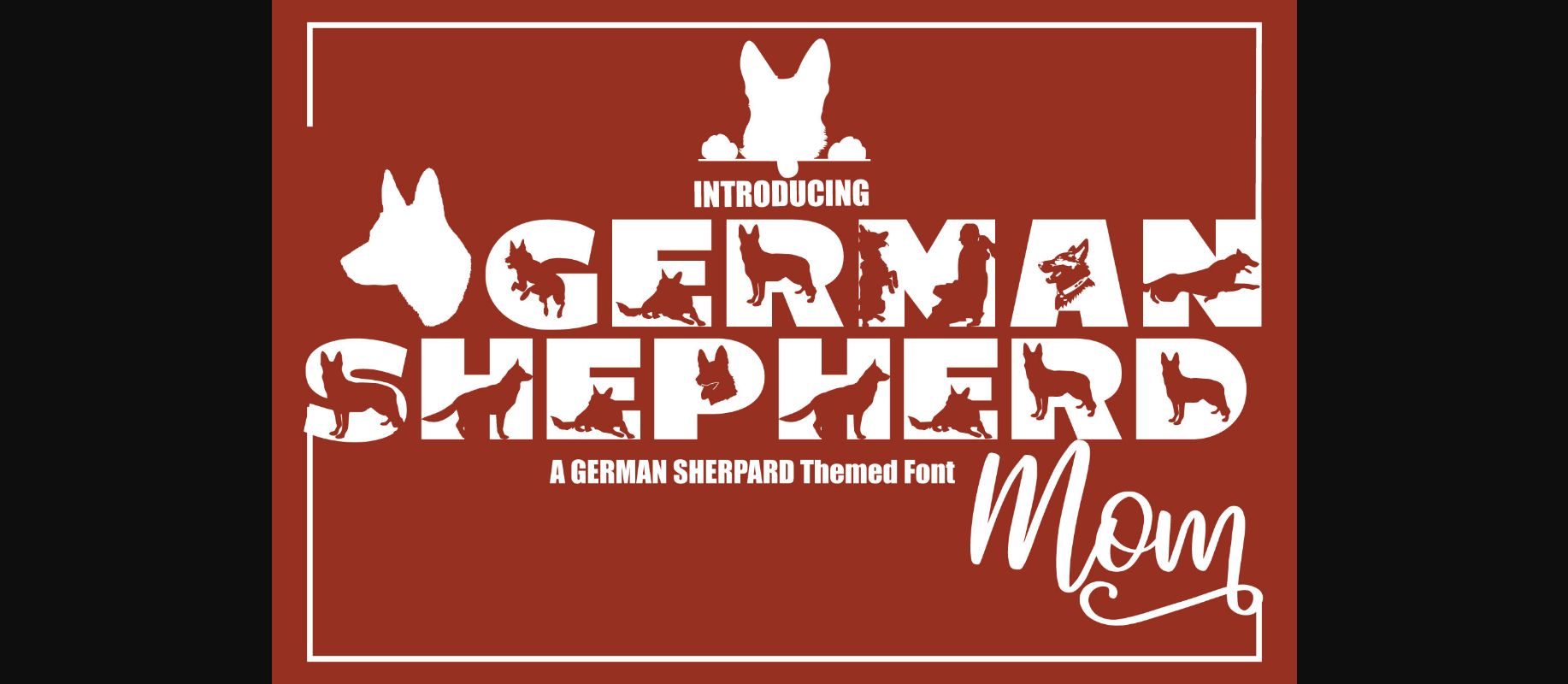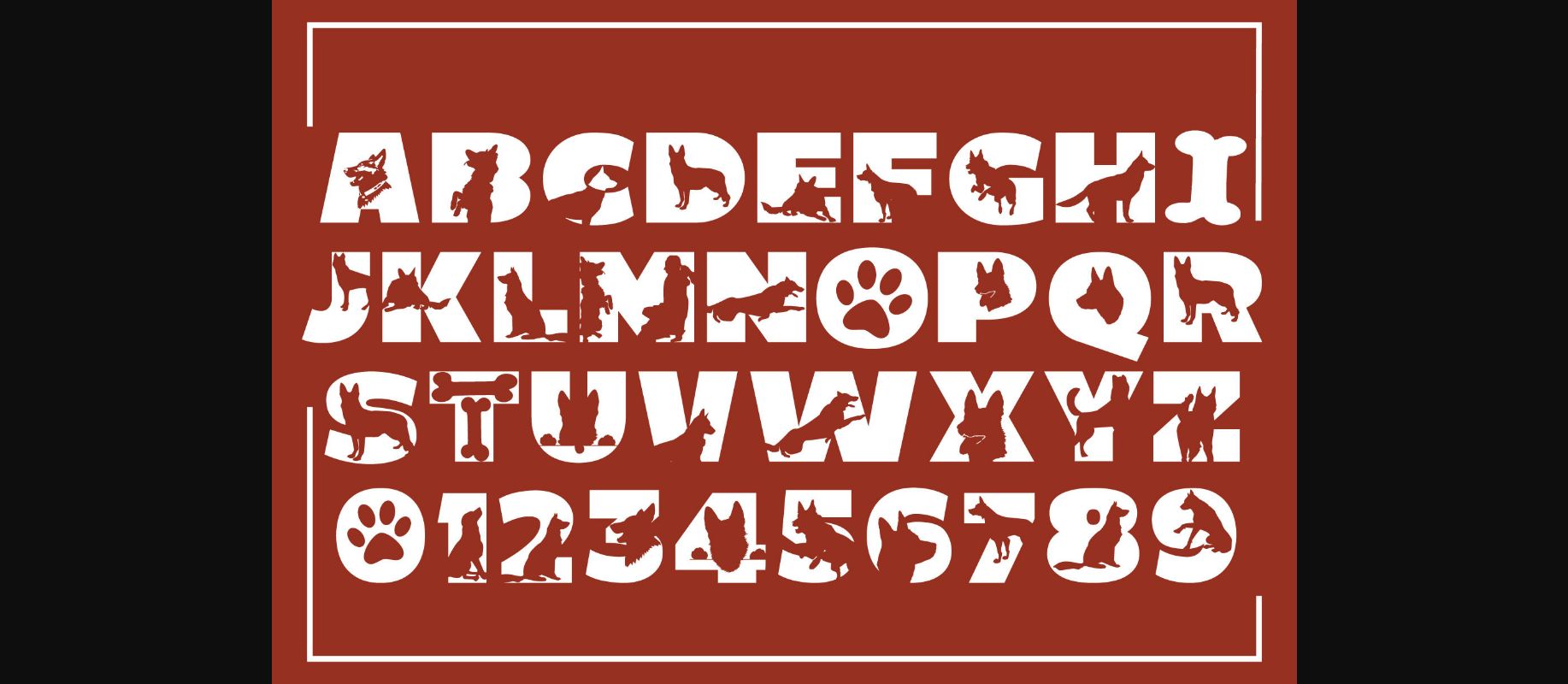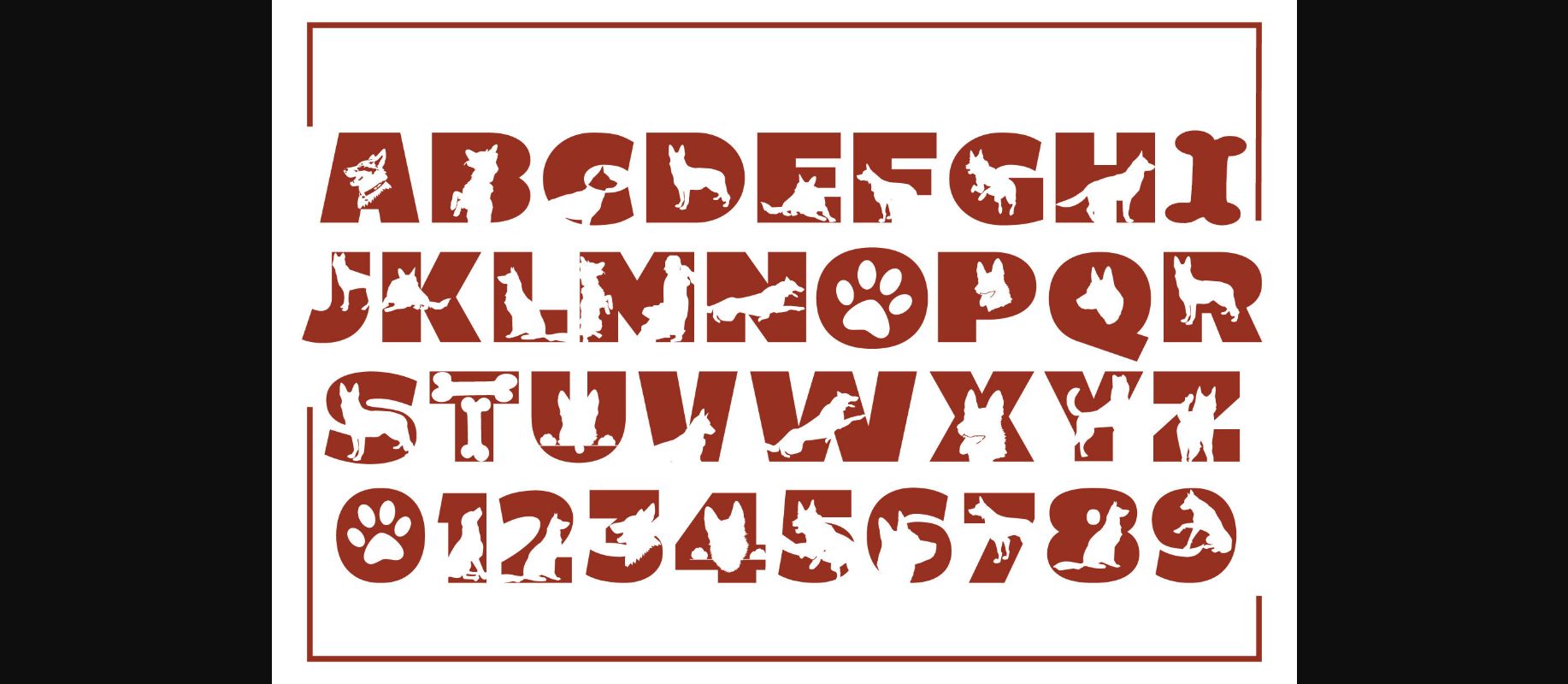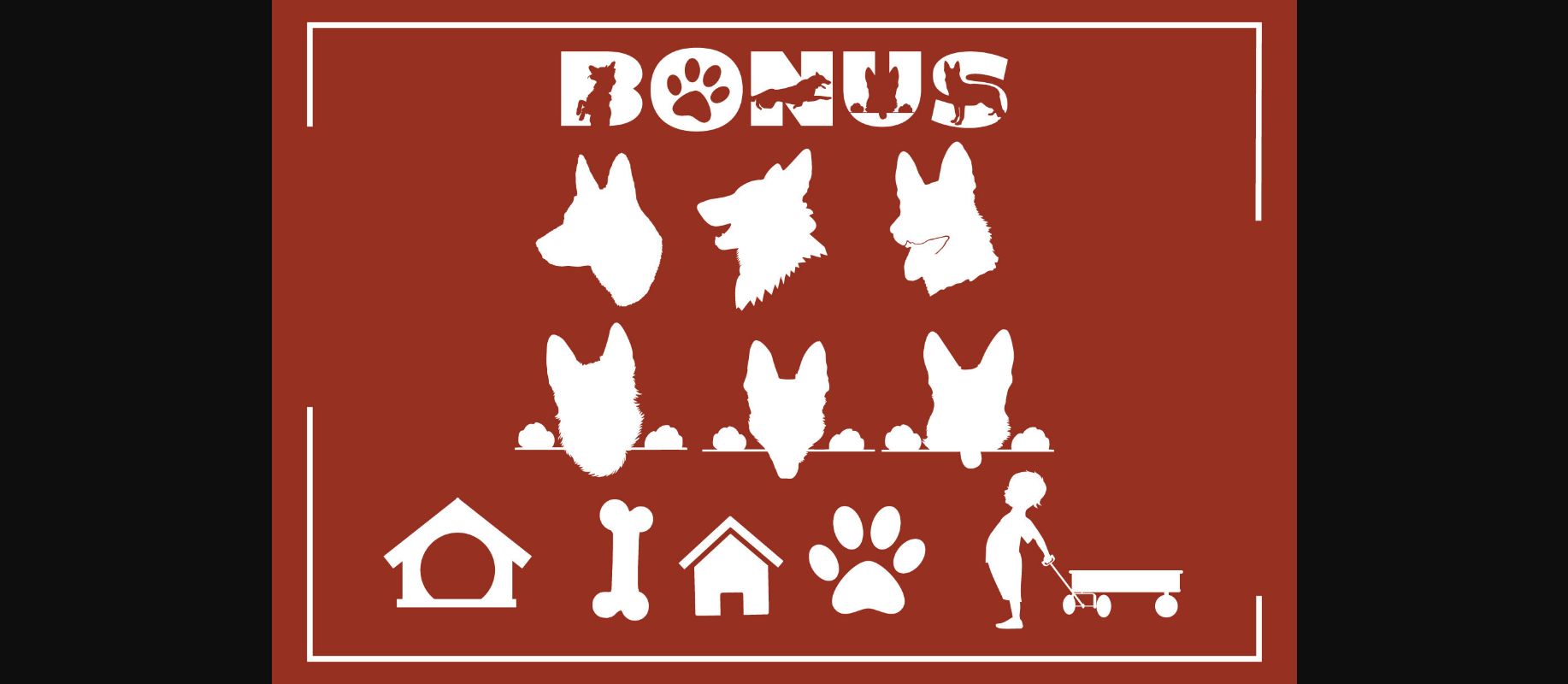
German Shepherd Mom Font
About German Shepherd Mom Font
German Shepherd Mom is a bold yet incredibly cute decorative font, featuring shepherds on each character. Whether you are using it for cartoon-related designs, children’s games, quotes, titles, brand names, book covers, posters, or just any creation that requires a touch of beauty, this font is a great choice.